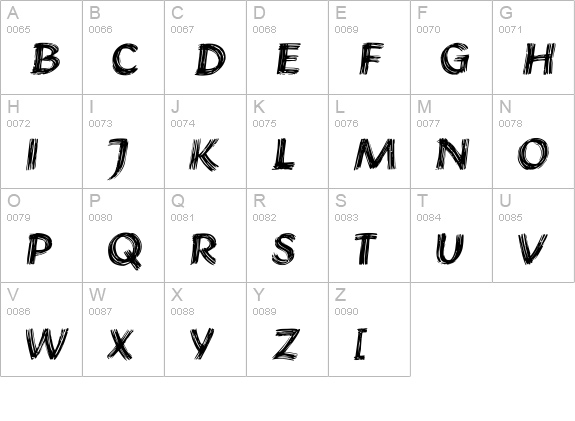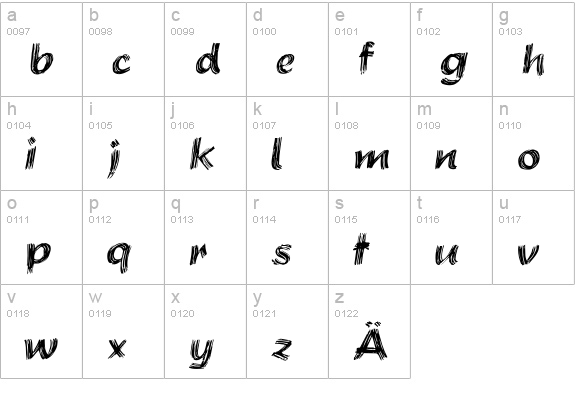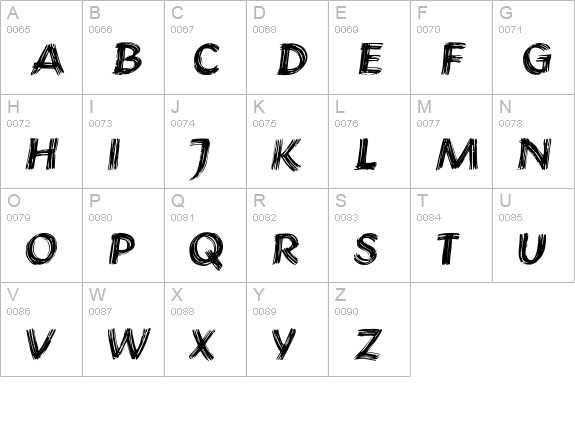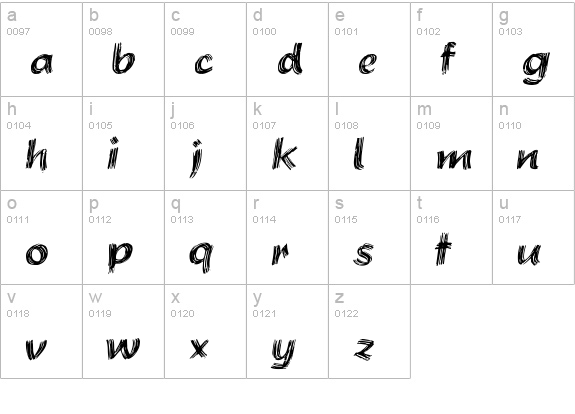
Brushstroke Plain Font Details
Brushstroke Plain font is a charming and versatile typeface that effortlessly captures the essence of hand-painted brushstrokes. With its natural, flowing lines and authentic brushstroke appearance, this font exudes a sense of creativity and artistic flair. Whether you're designing a poster, invitation, logo, or any other creative project, Brushstroke Plain font will add a touch of handmade charm to your work. Best of all, Brushstroke Plain font is available for free download at FontsMarket.com. This means you can easily access this beautiful font and incorporate it into your designs without any cost. Embrace the artistic appeal of Brushstroke Plain font and elevate your projects with its unique and captivating style.